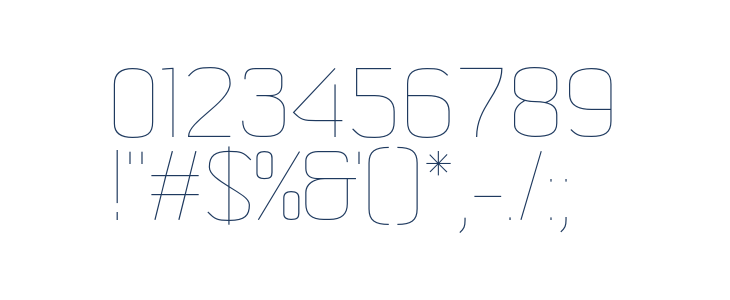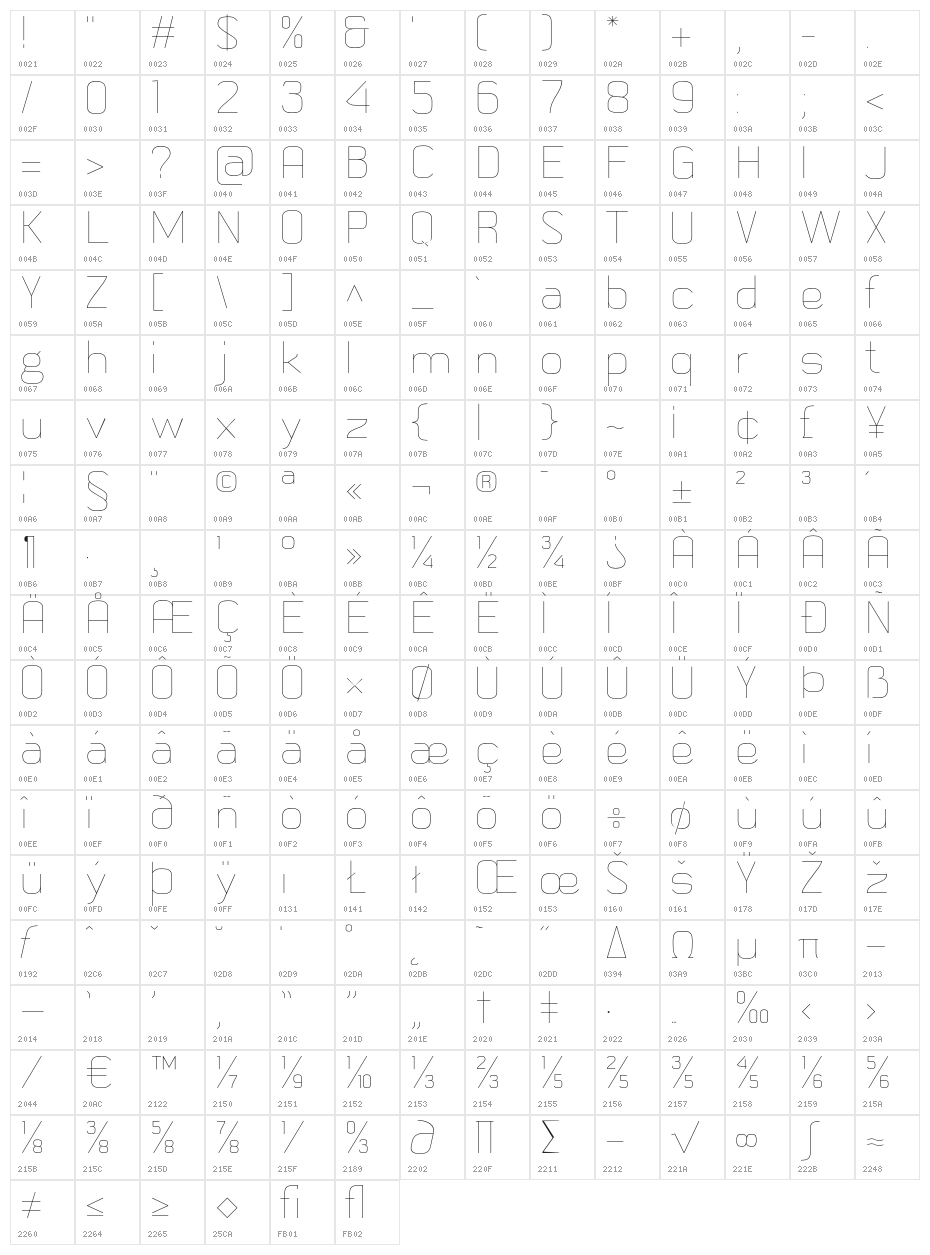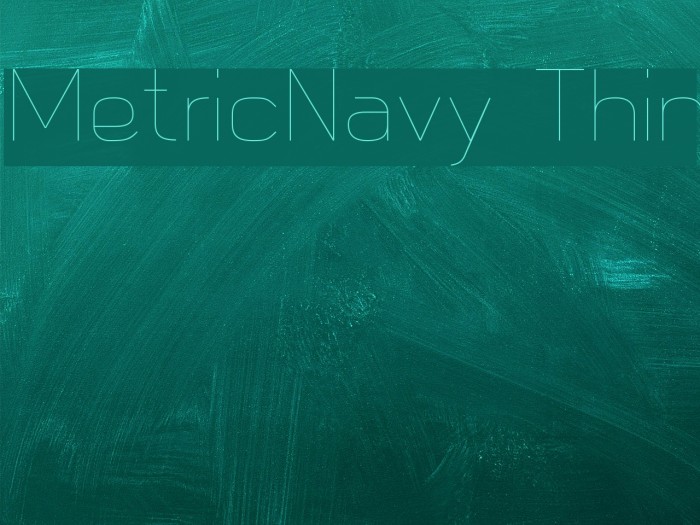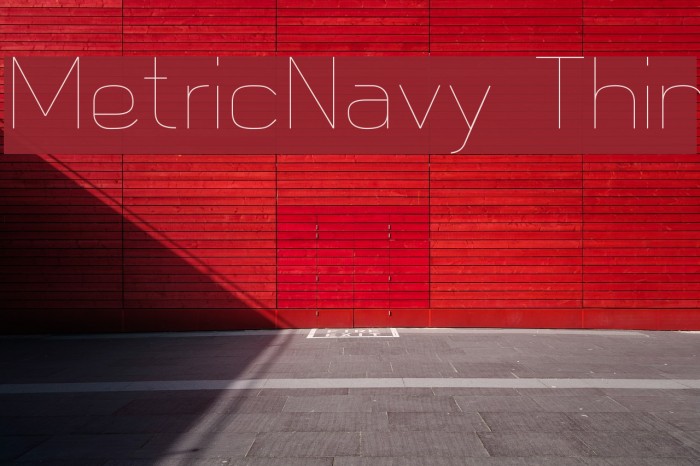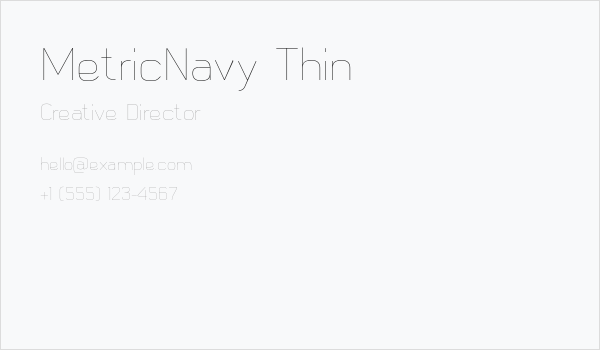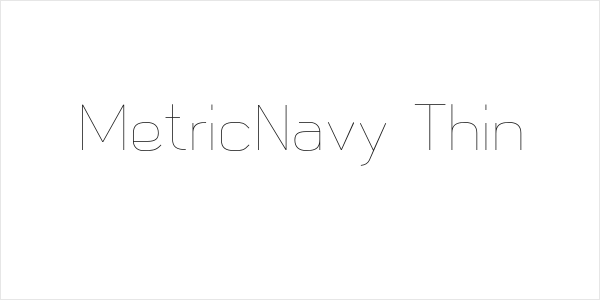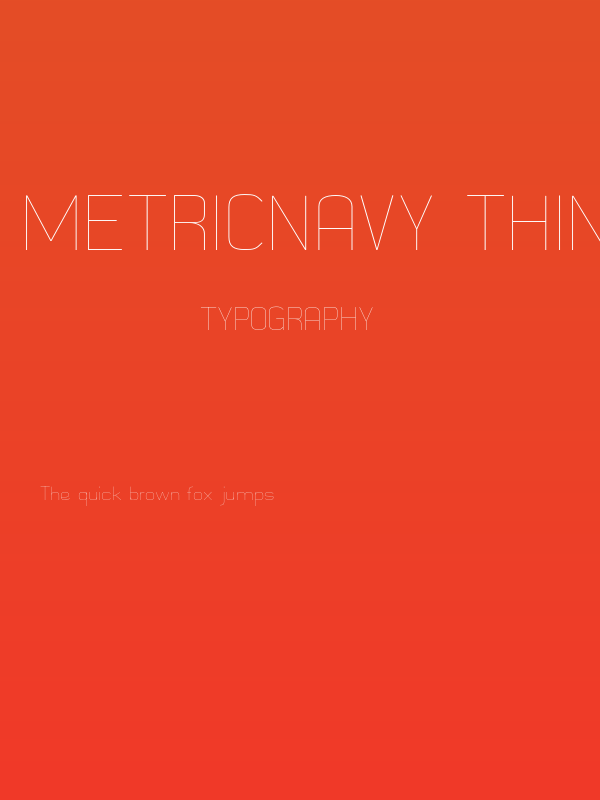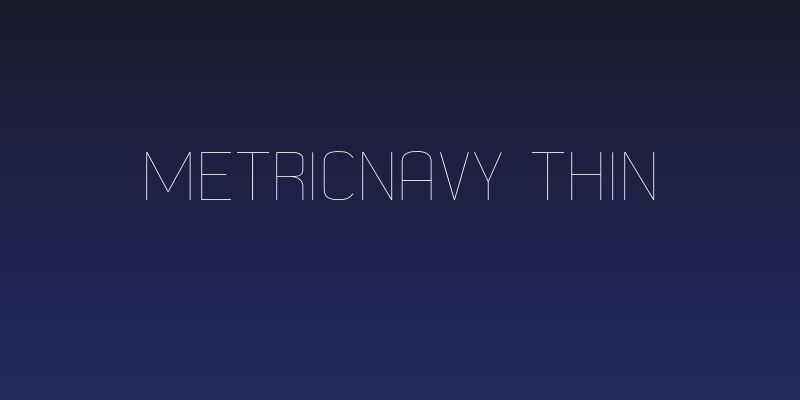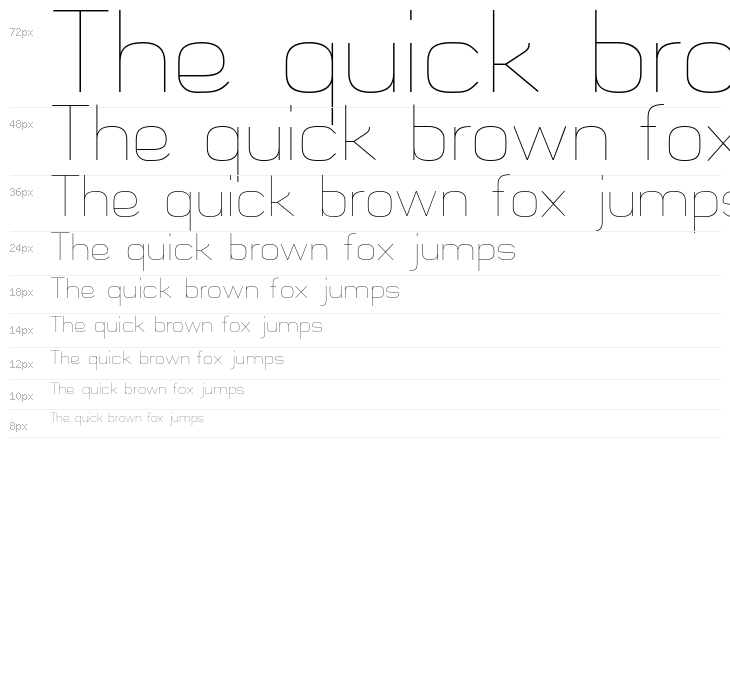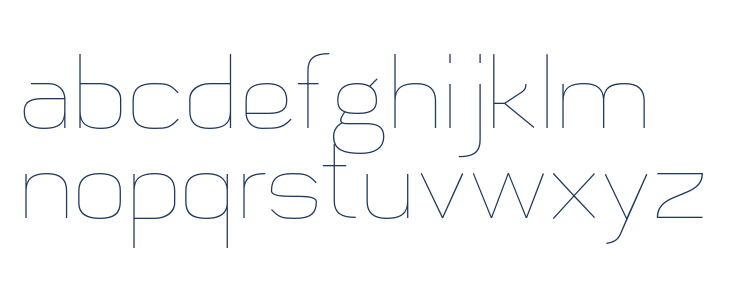
MetricNavy Thin Font
MetricNavy Thin Description
This font features a sleek, modern design with thin, geometric lines that create a clean and minimalistic appearance. The characters are evenly spaced, contributing to a balanced and harmonious look. The uppercase and lowercase letters maintain a consistent style, with a focus on simplicity and readability. The numerals and special characters follow the same design principles, ensuring uniformity across all elements. This font is ideal for projects that require a contemporary and sophisticated touch, offering versatility and elegance.